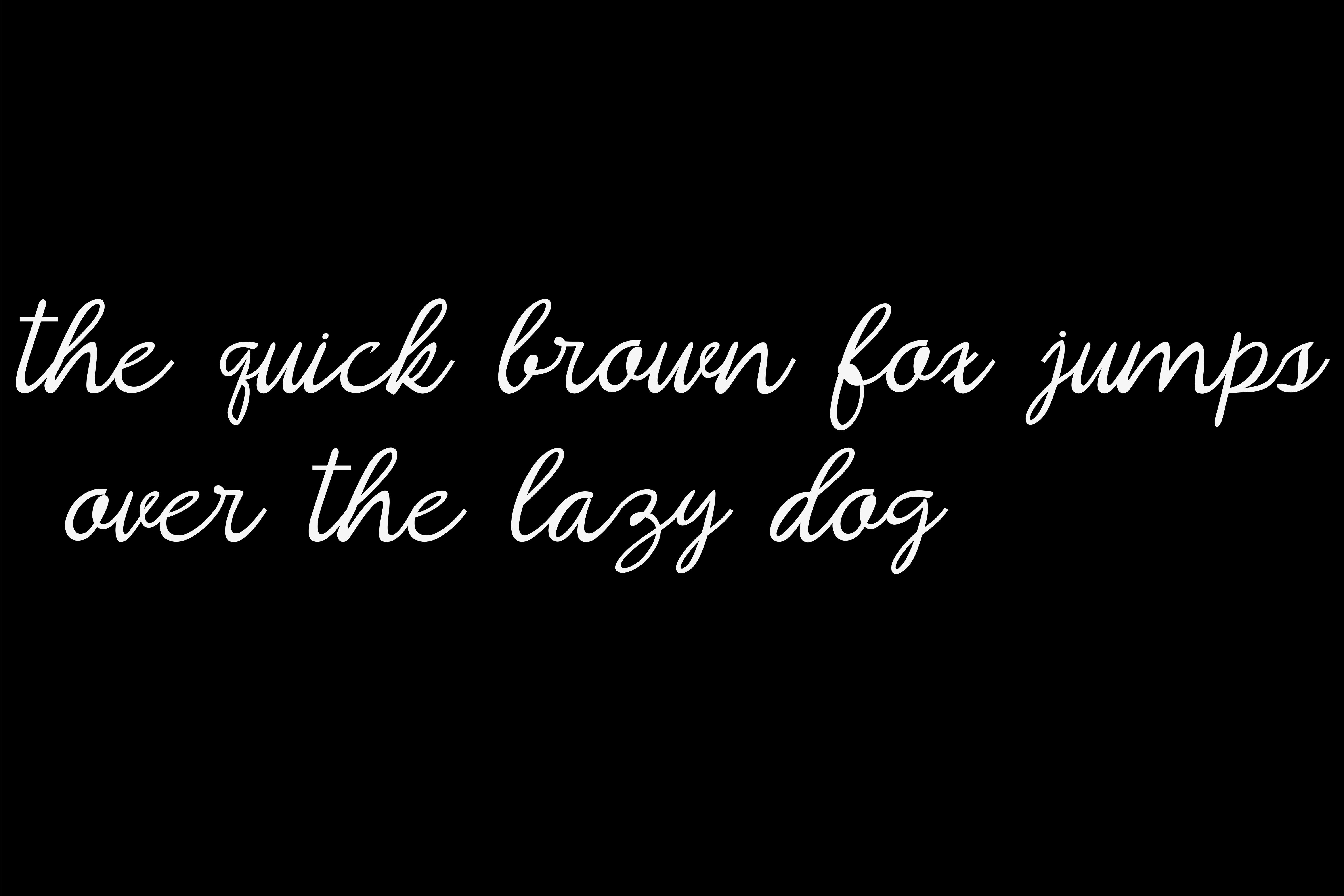
Introducing Asaikana Font: Elevate Your Designs with Elegance and Sophistication
In the world of typography, a beautiful font can make all the difference in transforming a design from ordinary to extraordinary. For designers and crafters seeking to add a touch of elegance and sophistication to their projects, Asaikana Font is an exceptional choice. This stunning modern calligraphy font is crafted to bring a sense of refinement and effortless style to your creations, making it perfect for a wide range of applications.
The Unique Appeal of Asaikana Font
Asaikana Font boasts a unique appeal that is both natural and classic. Its modern calligraphy style is designed to evoke a sense of fluidity and movement, while its elegant lines and curves bring a touch of sophistication to any design. Whether you’re working on a branding project, creating beautiful wedding invitations, or crafting eye-catching packaging, Asaikana Font is sure to impress.
Key Features of Asaikana Font
- Modern Calligraphy Style: Asaikana Font features a beautiful modern calligraphy style that is both elegant and refined.
- Unique Appeal: This font has a unique appeal that is both natural and classic, making it perfect for designers seeking to add a touch of sophistication to their projects.
- Elegant Lines and Curves: Asaikana Font features elegant lines and curves that bring a sense of refinement and effortless style to any design.
- Versatile: This font is versatile and can be used for a wide range of applications, from branding and advertising to packaging and invitations.
Why Choose Asaikana Font?
With so many fonts available, why choose Asaikana Font? Here are just a few reasons why designers and crafters are falling in love with this beautiful modern calligraphy font:
- Easy to Read: Asaikana Font is easy to read, making it perfect for body text and headlines.
- Highly Legible: This font is highly legible, even at small sizes, making it ideal for use in a variety of applications.
- Beautifully Crafted: Asaikana Font is beautifully crafted, with elegant lines and curves that bring a touch of sophistication to any design.
- Unique Style: This font has a unique style that sets it apart from other modern calligraphy fonts, making it perfect for designers seeking to add a touch of elegance and sophistication to their projects.
Using Asaikana Font in Your Designs
Asaikana Font is incredibly versatile and can be used in a wide range of applications. Here are just a few ideas to get you started:
- Branding and Advertising: Use Asaikana Font to create beautiful brand identities, including logos, business cards, and letterheads.
- Wedding Invitations: This font is perfect for creating beautiful wedding invitations, save-the-date cards, and other wedding stationery.
- Packaging: Use Asaikana Font to create eye-catching packaging that stands out on store shelves.
- Digital Designs: This font is also perfect for use in digital designs, including social media graphics, blog posts, and email marketing campaigns.
In conclusion, Asaikana Font is a beautiful modern calligraphy font that is sure to elevate your designs with elegance and sophistication. With its unique appeal, elegant lines and curves, and versatile style, this font is perfect for designers and crafters seeking to add a touch of refinement and effortless style to their projects. Whether you’re working on a branding project, creating beautiful wedding invitations, or crafting eye-catching packaging, Asaikana Font is an exceptional choice.